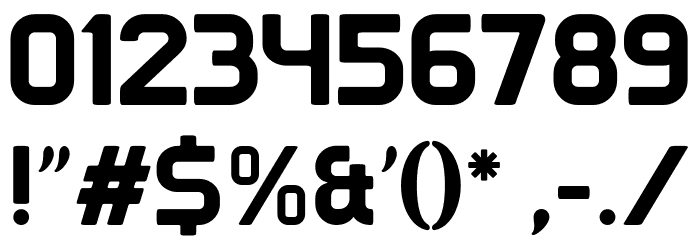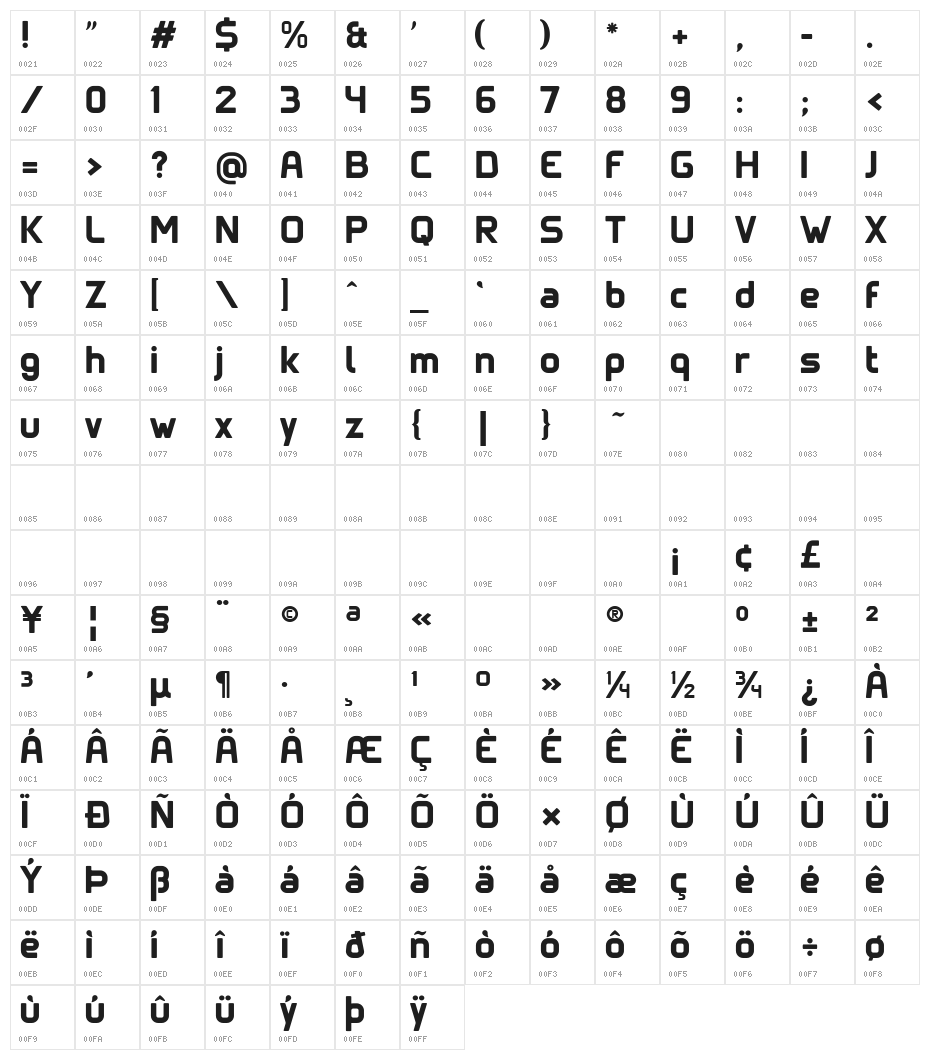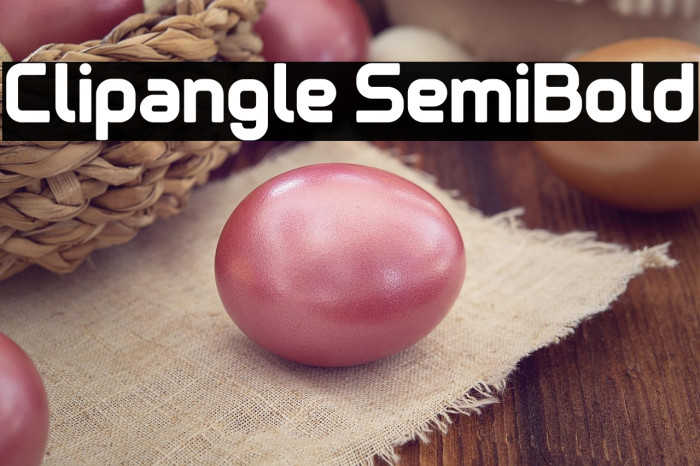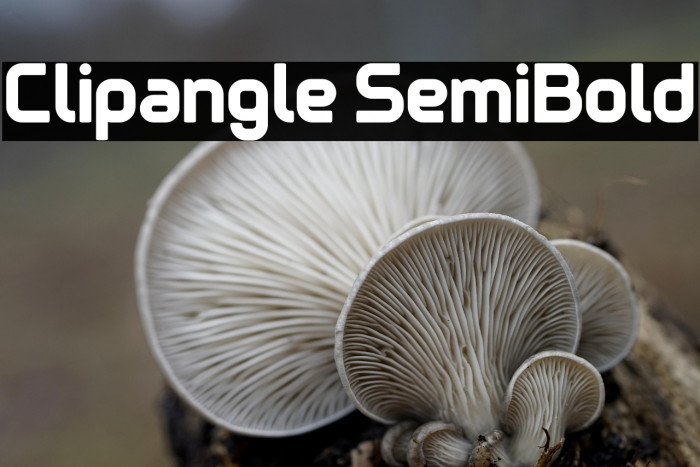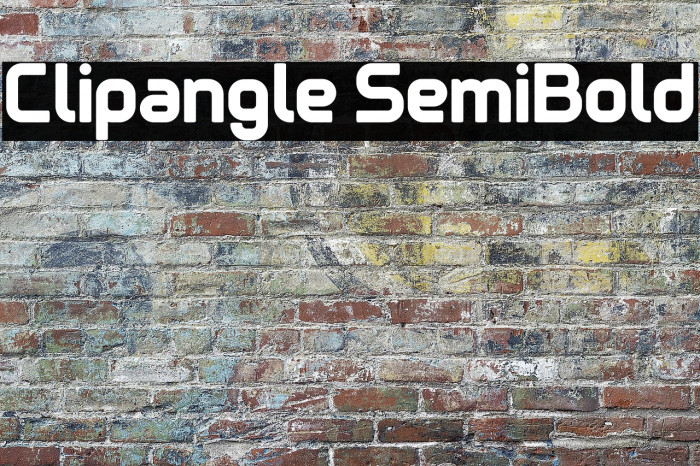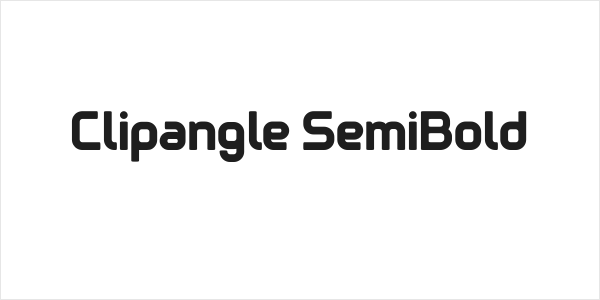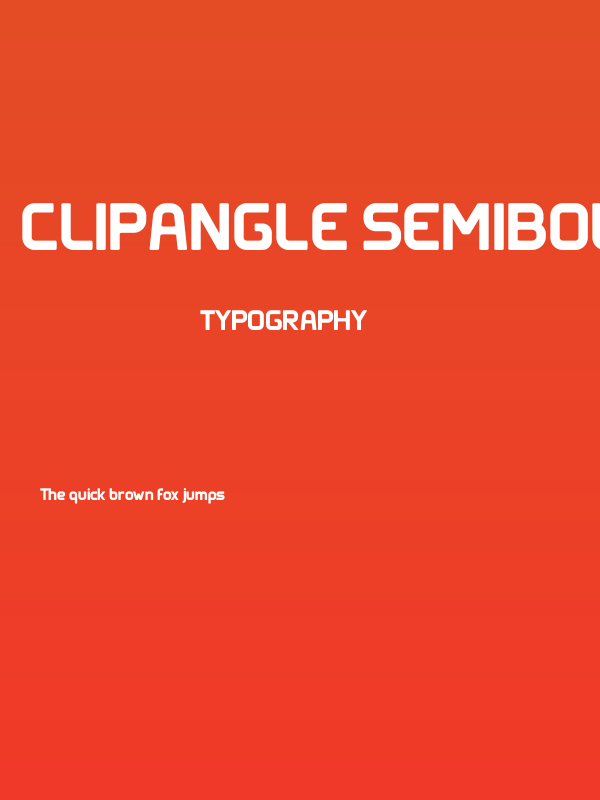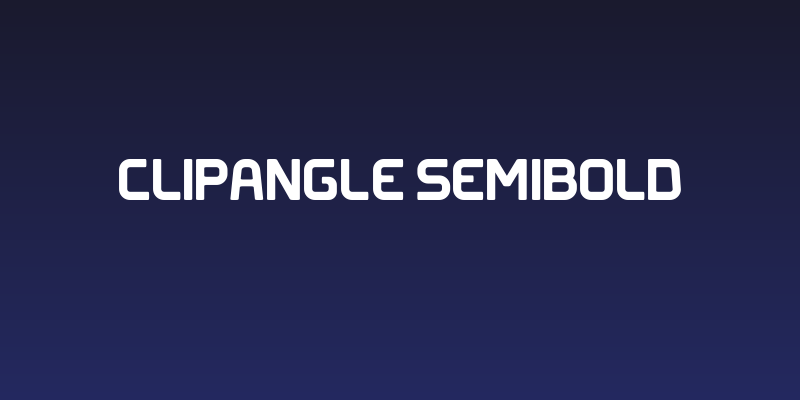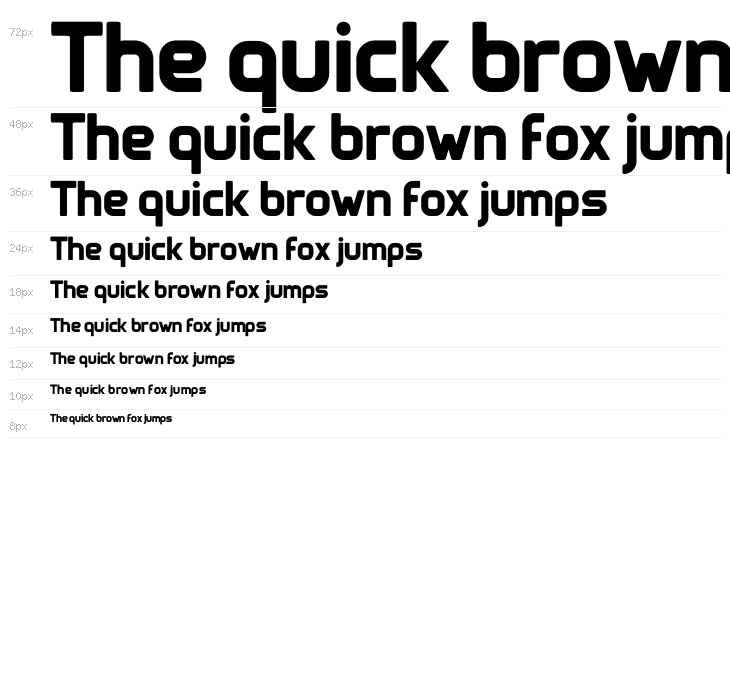
Clipangle SemiBold Font
Clipangle SemiBold Description
This font features a modern, geometric style with a clean and bold appearance. The characters are well-defined with rounded edges, giving it a friendly yet professional look. The uppercase and lowercase letters maintain a consistent height, while the numerals are clear and easy to read. Special characters are distinct and match the overall aesthetic. The design is versatile, suitable for both digital and print media, offering a contemporary feel that can enhance various design projects.
| Use Case | Headlines, Logos, Digital Media |
| Proposed Projects | Ideal for branding, advertising, digital media, and print design projects. |